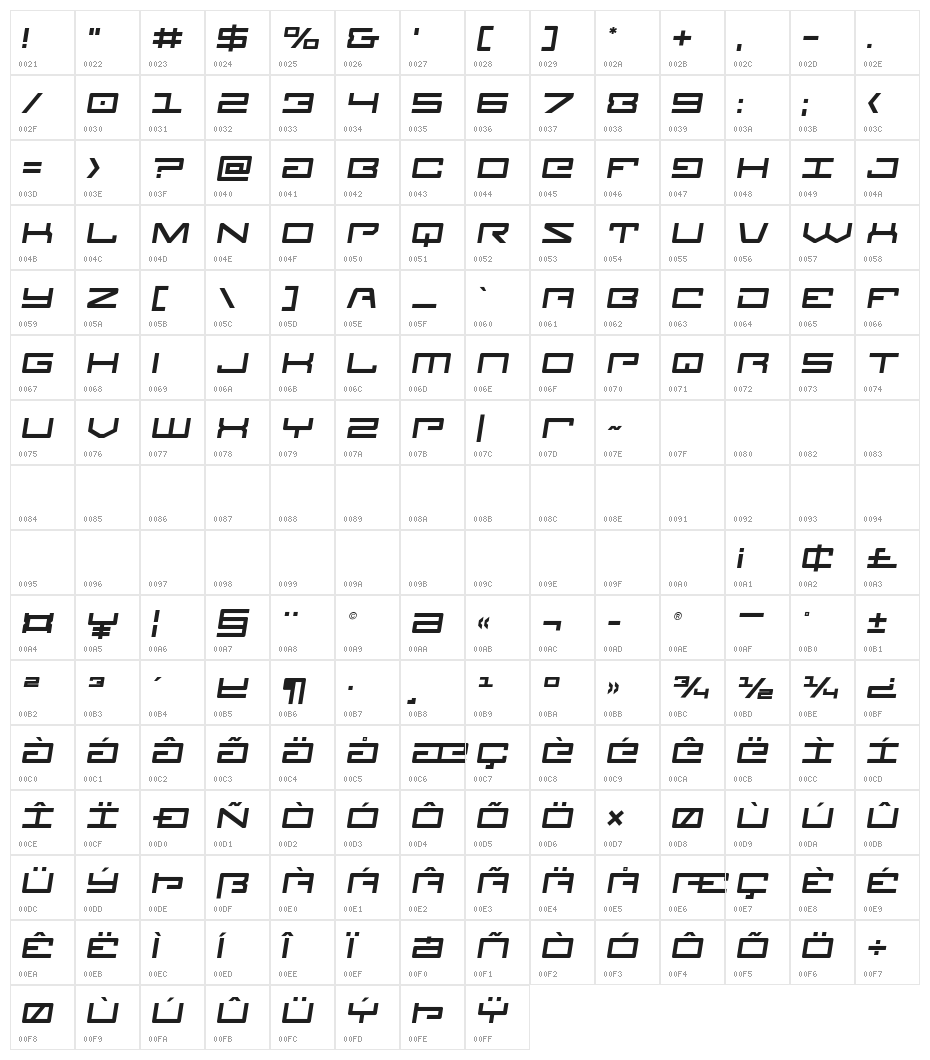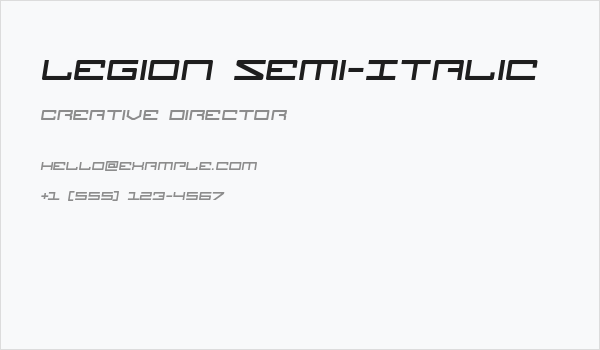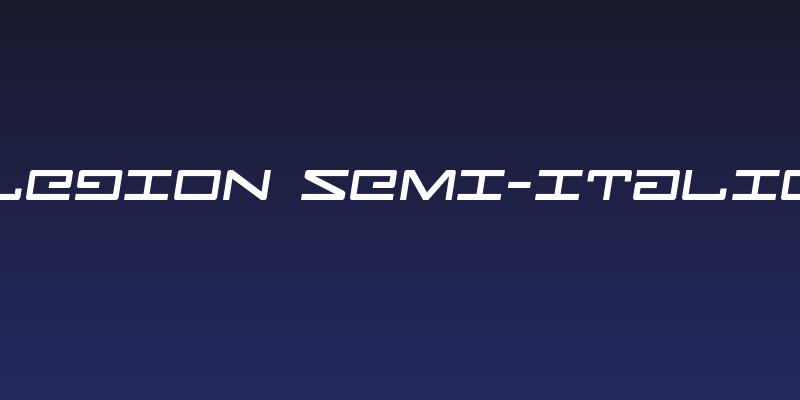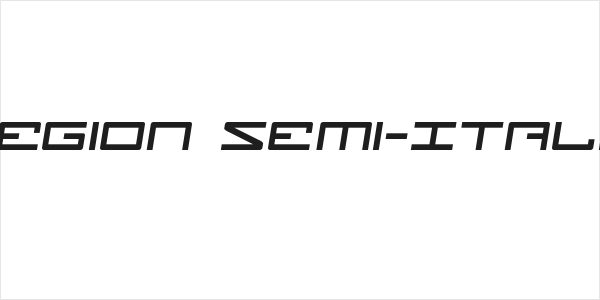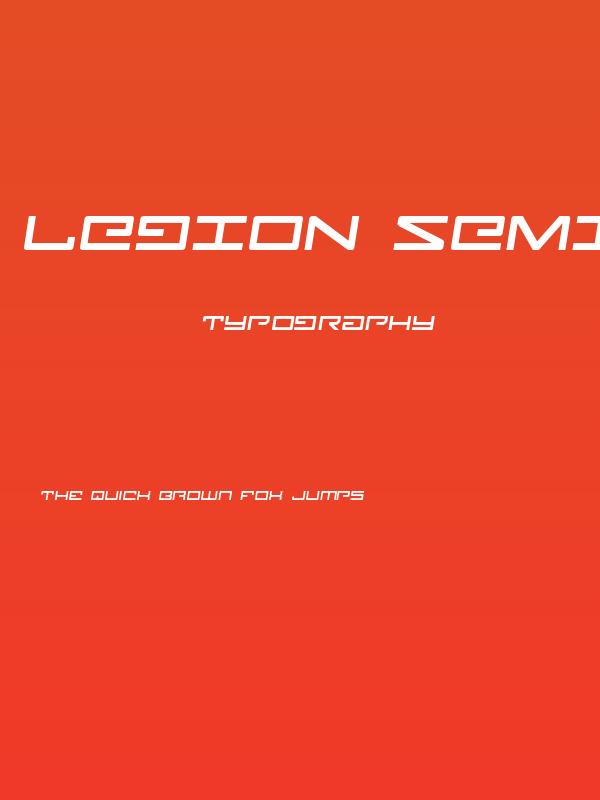
Legion Semi-Italic Font
This font features a futuristic and angular design, characterized by sharp edges and a geometric structure. The letters are slightly slanted, giving a dynamic and forward-moving appearance. The uppercase and lowercase letters maintain a consistent style, with a uniform stroke width that conveys a sense of modernity and precision. The numerals and special characters complement the overall aesthetic, making it suitable for projects that require a sleek and contemporary look.
| Use Case | Headlines, Logos, Display text |
| Proposed Projects | Ideal for technology branding, sci-fi themed projects, video game interfaces, and modern advertising campaigns. |